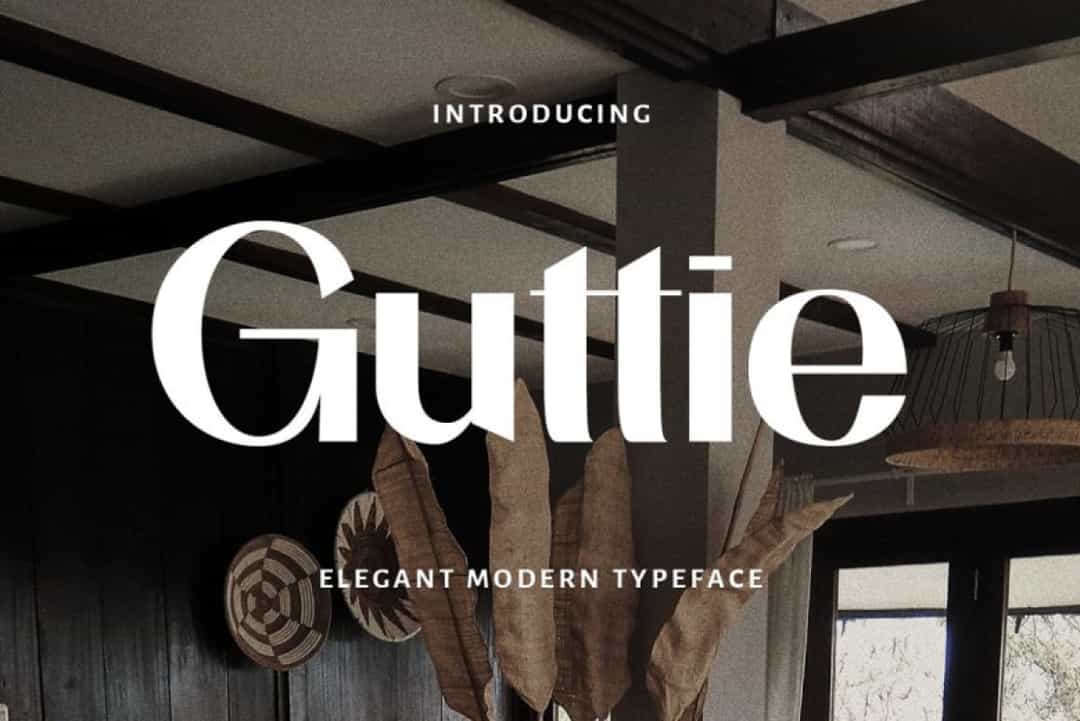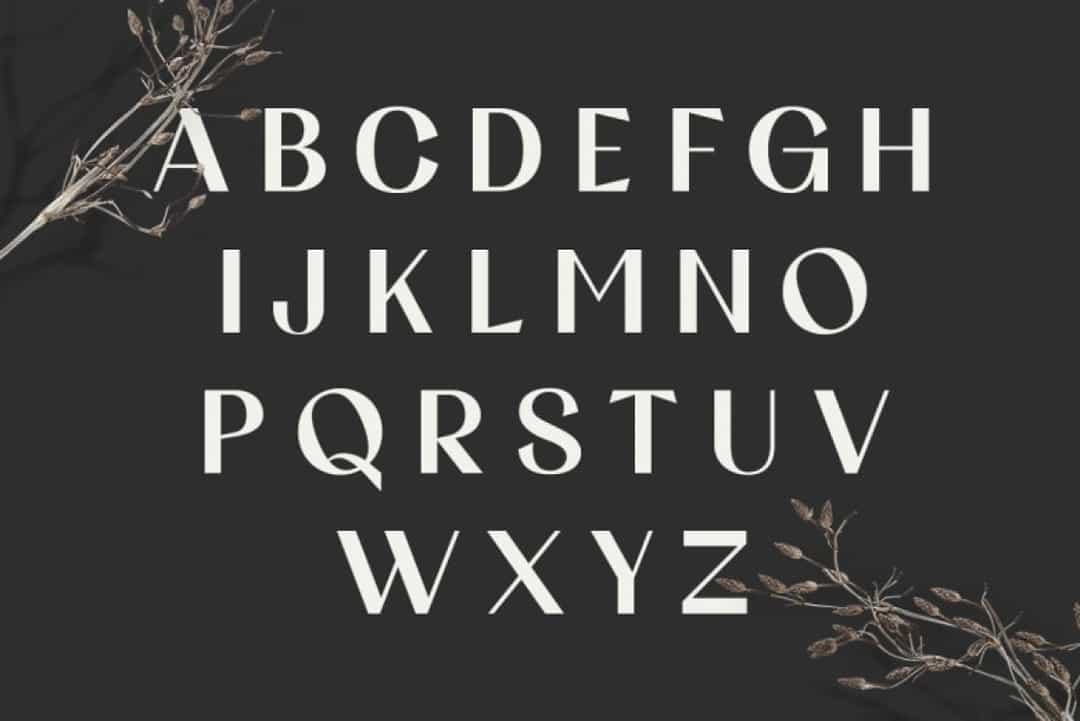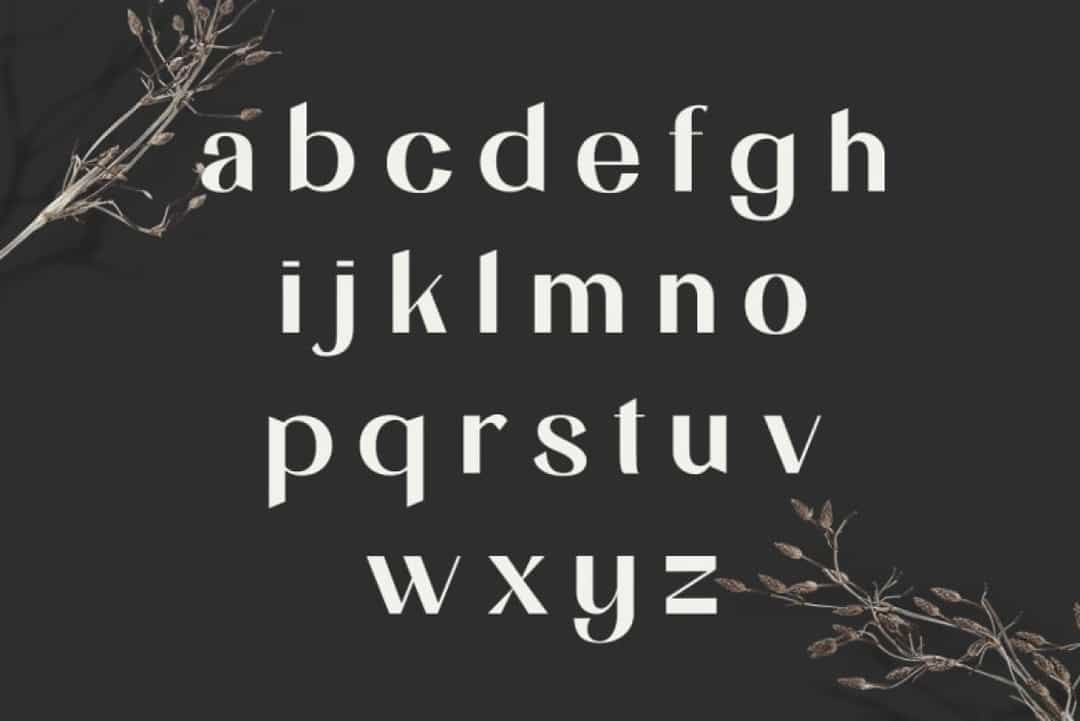
Discover Guttie Font, part of the Sans Serif Display collection—a versatile and unique font perfect for adding a personal touch to your projects. Download it for free and enjoy crafting designs with style, from invitations to social media posts. This font is available exclusively for personal use, giving you the freedom to create without limits. Unlock your creativity with Guttie Font today!
Guttie Font is an integral component of graphic design and usability, telling stories to convey a specific message or inspire readers into action. Guttie Display Typeface can help you accomplish these objectives easily.